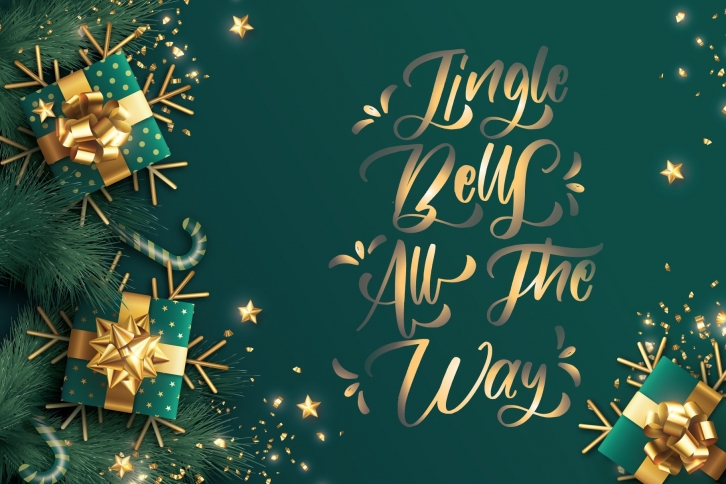
jingle all the way is a beautiful font that was designed by Goodigital13. It's a great choice for designers and creatives who need such a font. It was released on December 22, 2020 and the file size is 8.92 MB. jingle all the way may give a more youthful, expressive and casual look to your project. It is a very beautiful, refined, elegant, and high-quality font.